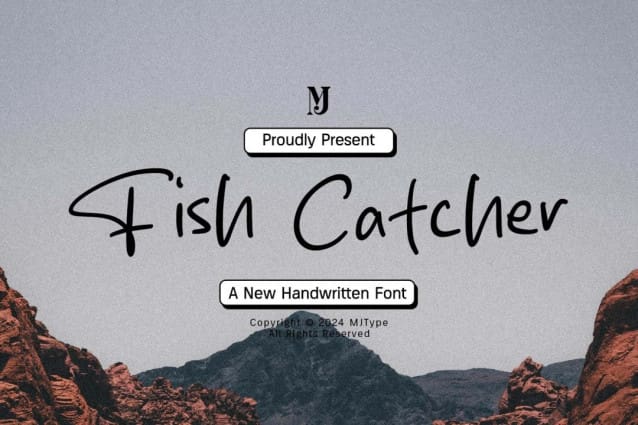
Fish Catcher Font
Fish Catcher Font is a simple and friendly handwritten font. Its natural and unique style makes it incredibly fitting to a large pool of designs. The only limit is your imagination!